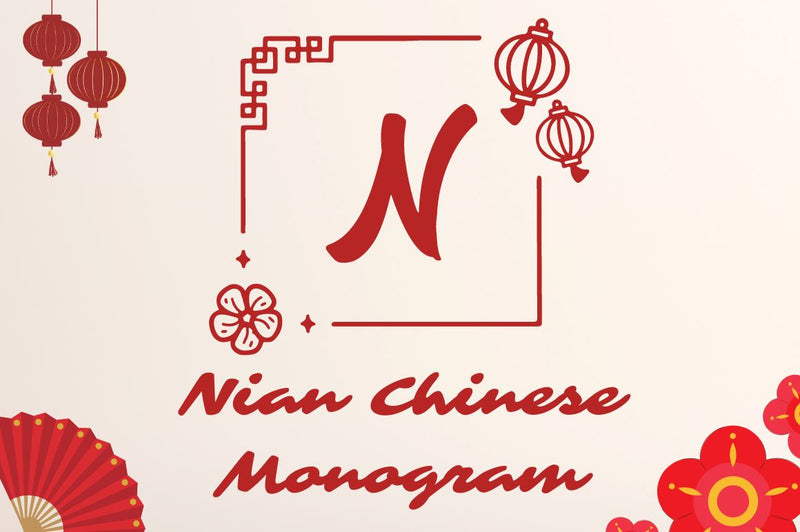
Nian Chinese Monogram
Nian Chinese Monogram is a Square Lantern wreath display chinese ornament monogram.
This font can be used to make chinese new year themed gifts, including textiles, gifts for kids and perfect gift for a new homeowner, chinese family or anyone with a love of monograms.
Comes in with 2 styles.
Just simply change between uppercase and lowercase to see the different styles!
Include frame design without letter, just click "." or ","
change the letter with your style.